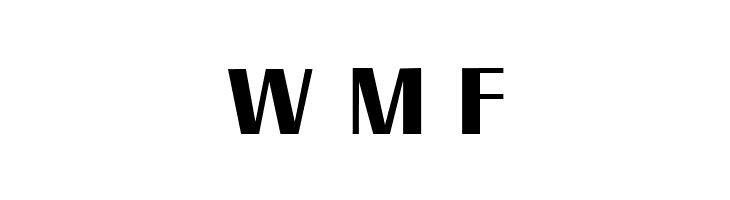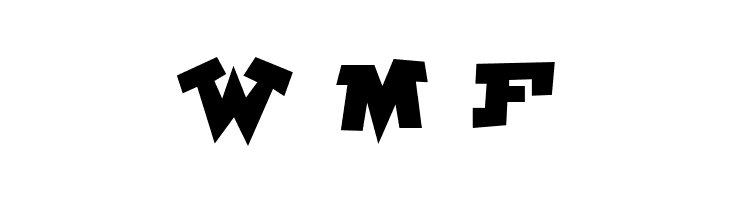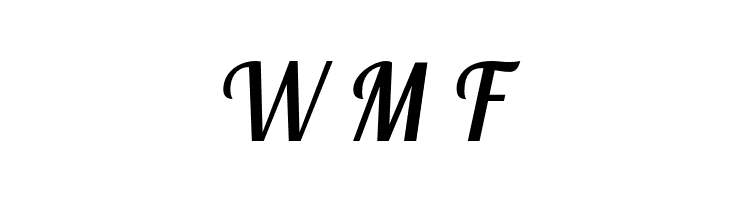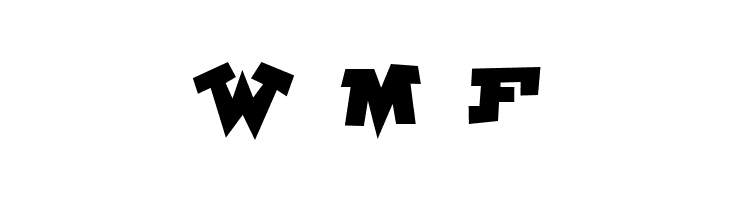
A modern, flowing script font with elegant italic styling.
A decorative font with sharp, angular lines and a modern, edgy style.
A decorative font with sharp, angular lines and a gothic-modern fusion.
A distressed, edgy font with sharp, jagged edges and a hand-drawn appearance.
A bold, artistic font with a distressed, brush-like appearance.
A bold, geometric font with a modern and impactful design.
A bold, playful font with angular, dynamic shapes.
A whimsical, hand-drawn font with elongated, narrow characters and uneven strokes.